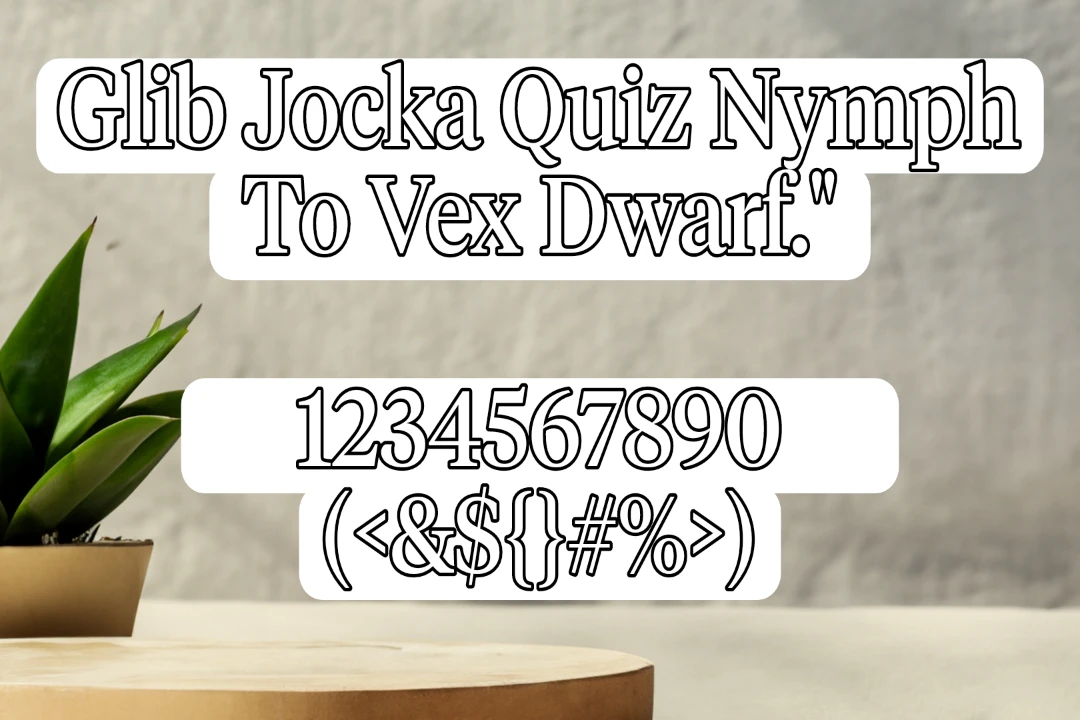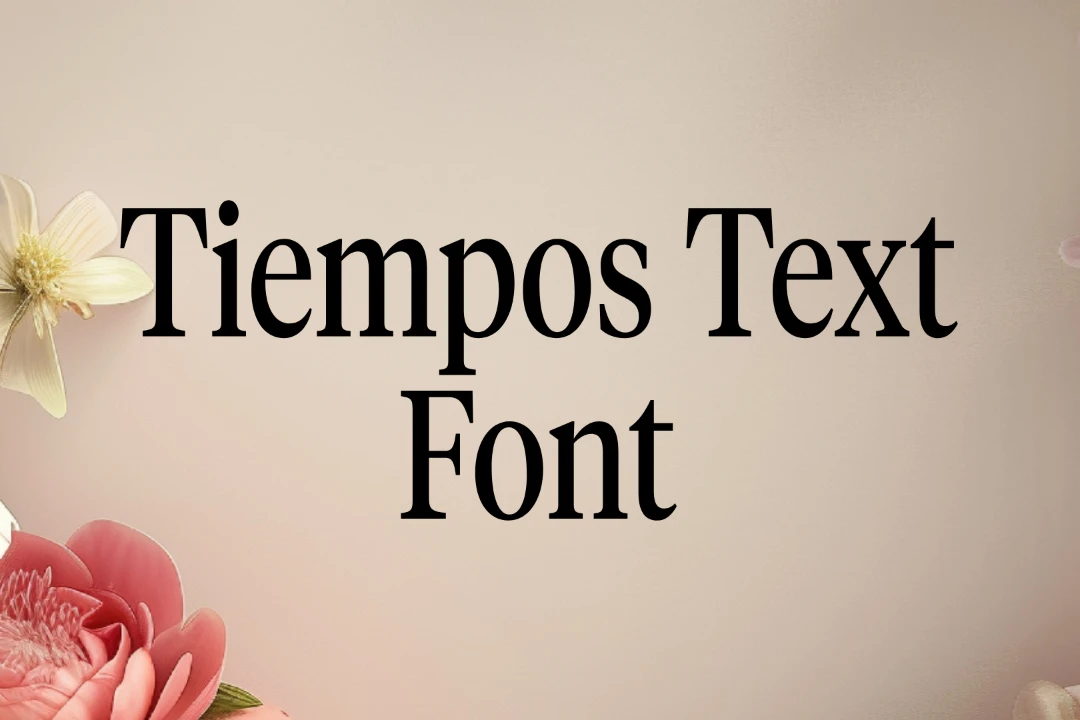
The Tiempos Text Font is an exceptional typeface available for free download, designed and published by renowned typographer John Smith.
Falling under the category of serif fonts, it is cherished for its classic and elegant appearance. Introduced to the public in 2015, this font has garnered praise for its timeless design and versatility.
Uses of Tiempos Text Font
It is widely utilized across diverse design projects, thanks to its classic aesthetic and adaptability. Designers frequently employ it in editorial design, leveraging its timeless elegance to enhance the readability and visual appeal of magazines, newspapers, and books.
In branding and identity design, it is favored for its ability to convey a sense of sophistication and authority. Its refined serifs and balanced proportions lend credibility and professionalism to brand communications.
Web designers also integrate the Tiempos Text texture into website typography to achieve a harmonious balance between readability and style. Whether used for body text or headings, this font ensures a seamless reading experience for online audiences.